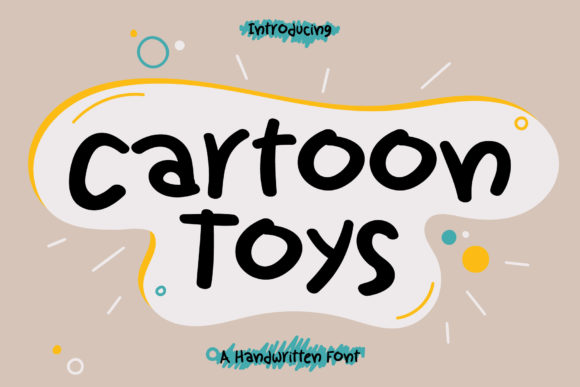
The Joy of Cartoon Toys Font: A Designer’s New Best Friend
I still remember the time I was working on a children’s activity book, and I was struggling to find the perfect font to bring the characters to life. The project required a font that was not only fun and playful but also easy to read. That’s when I stumbled upon Cartoon Toys Font, and it instantly became my go-to choice. In this article, I’ll share my experience with this amazing font, its features, and how to make the most of it in your designs.
An Honest Review of Cartoon Toys Font
Cartoon Toys Font is a cute and fun display font that embodies playfulness and authenticity, making it perfect for any children activity or school project. Here’s what I love about it:
- ✨ Playful and fun: Cartoon Toys Font is designed to bring a smile to your face. Its chunky letters and bouncy feel make it perfect for kids’ projects, party invitations, or any design that needs a playful touch.
- ✅ Easy to read: Despite its playful nature, Cartoon Toys Font is surprisingly easy to read, even in smaller sizes. This makes it a great choice for body text in children’s books or activity sheets.
- 🎉 Versatile: Cartoon Toys Font is not just limited to kids’ projects. It can also be used for branding, packaging, or any design that needs a fun and youthful vibe.
However, there are a few quirks to keep in mind:
- 🤔 Limited use in formal designs: While Cartoon Toys Font is amazing for playful designs, it may not be the best choice for formal or professional projects.
- ⚠️ Some letters may not work well in all contexts: As with any font, some letters or combinations may not work well in all contexts. Be sure to test the font thoroughly in your design.
The Backstory of Cartoon Toys Font
Cartoon Toys Font was designed by a team of creatives who wanted to create a font that would bring joy and playfulness to designs. Inspired by classic cartoons and children’s books, they crafted a font that’s both fun and functional. The result is a font that’s perfect for designers, crafters, and creative hobbyists who want to add a touch of whimsy to their work.
| Font Name | Cartoon Toys Font |
| Author | Wanida Toffy |
| What is Cartoon Toys Font? | Cartoon Toys Font is a cute and fun display font designed for children’s activities, school projects, and playful designs. |